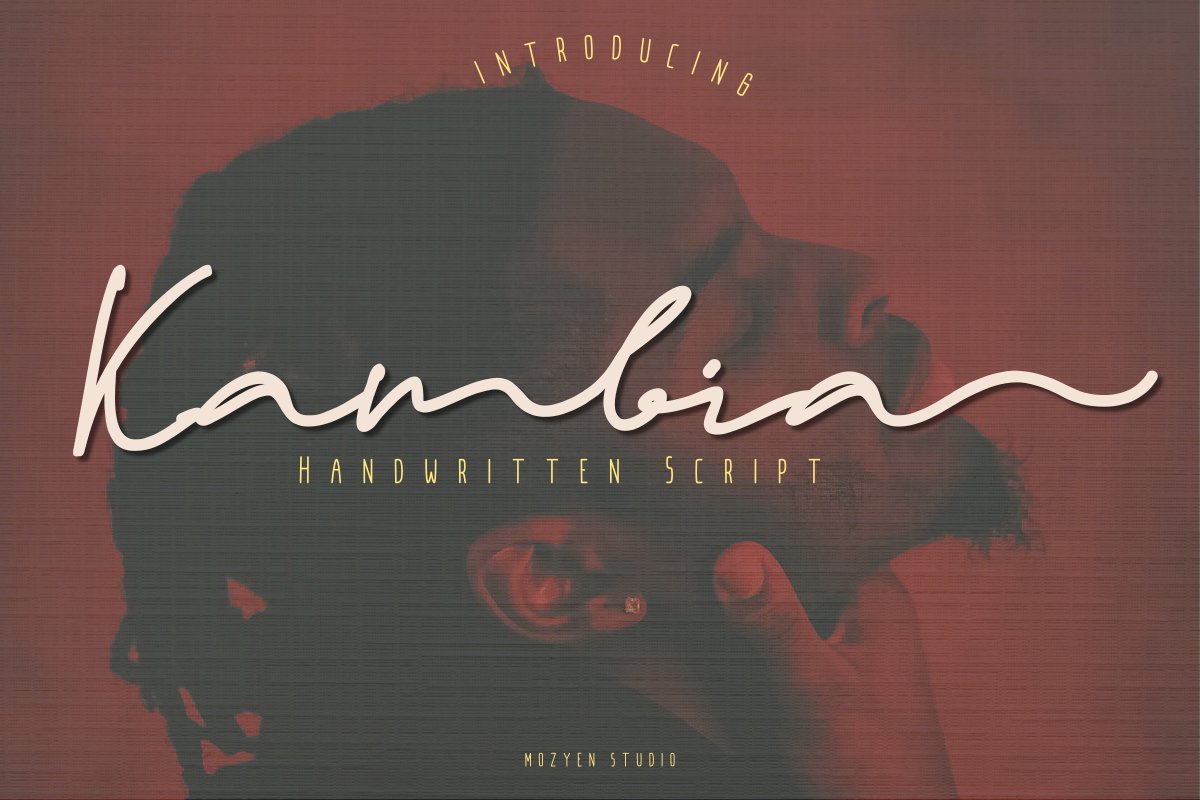
Kambia
Happily
born son of the family Mozyen studio. he is the “Kambia” Handwritten
Font. Kambia can accompany your design so that it looks attractive and
extraordinary. Kambia you can use in various designs such as weddings,
beautiful words, t-shirt designs, business cards, company logos and